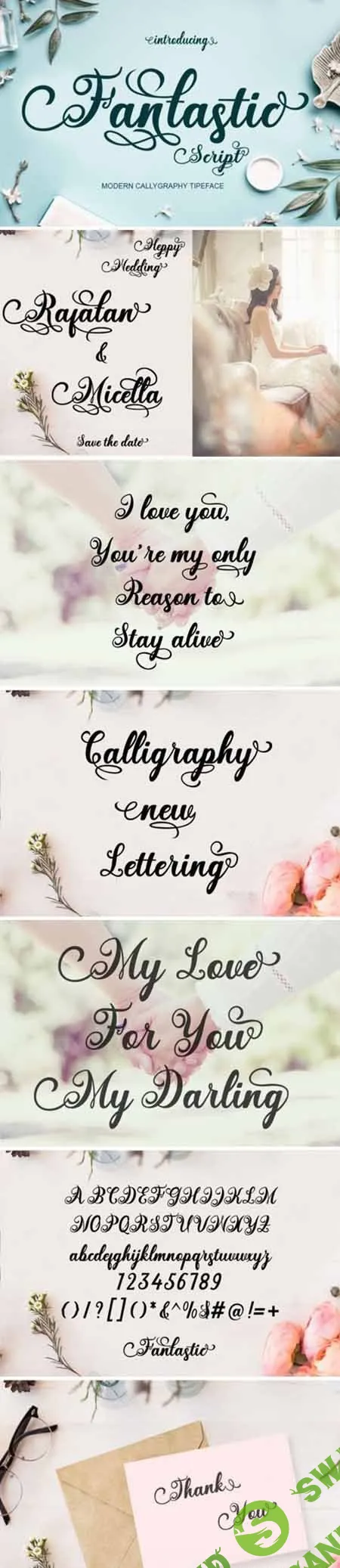
Название: Fantastic Script Font
Fantastic Script Font
Описание:
Fantastic delivers smooth curves, stunning ligatures and bold swashes: A true standout script!